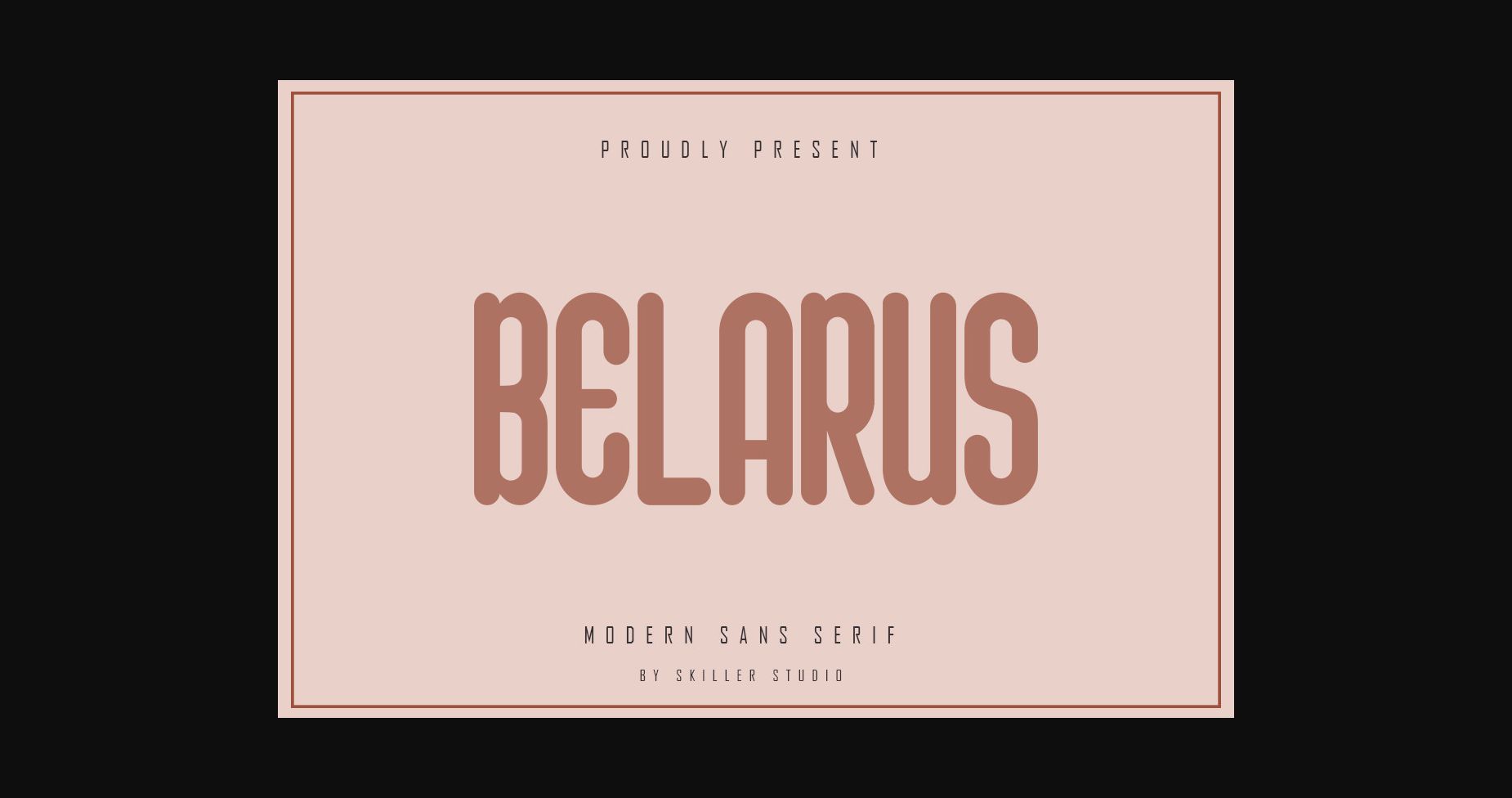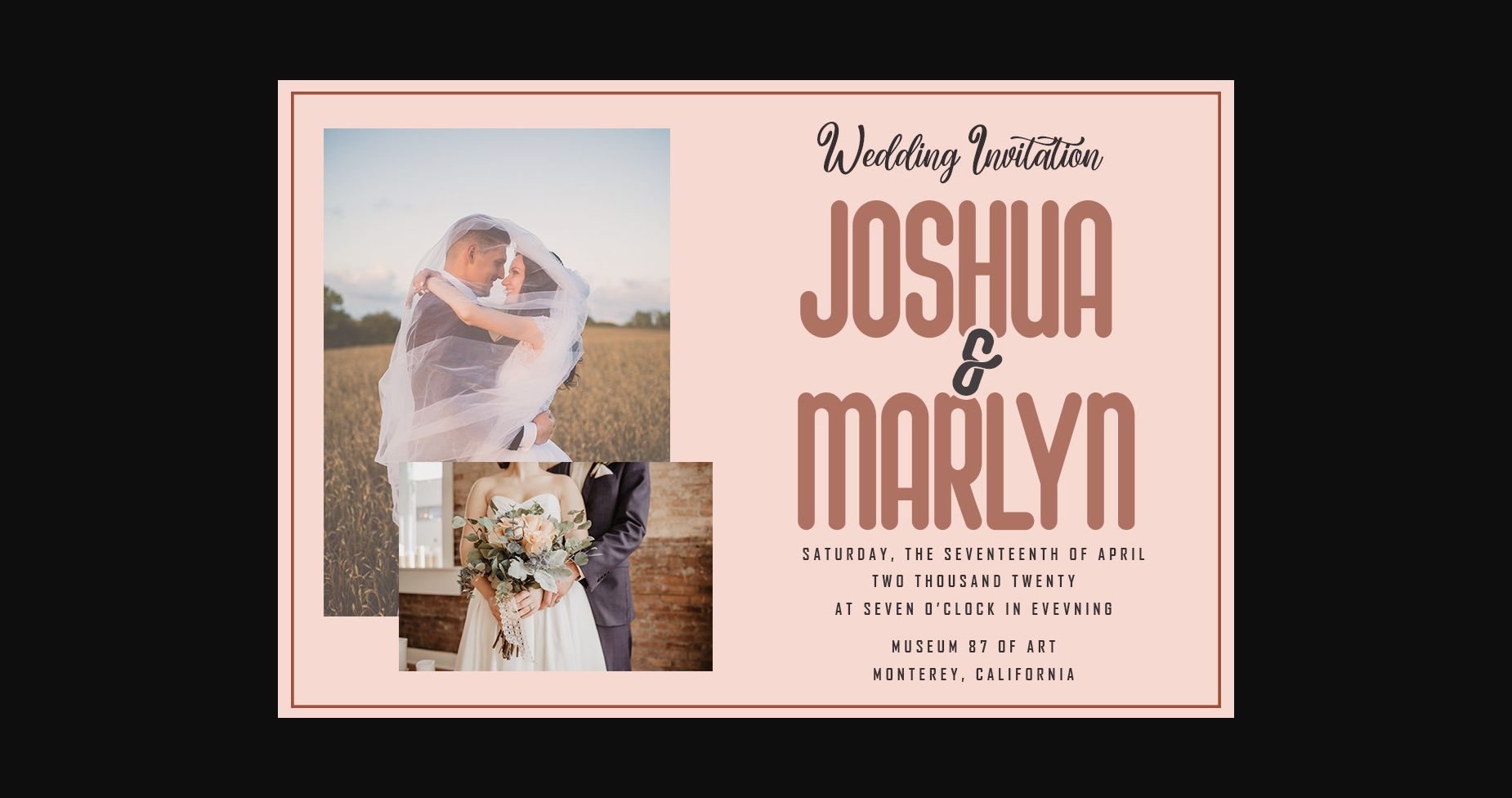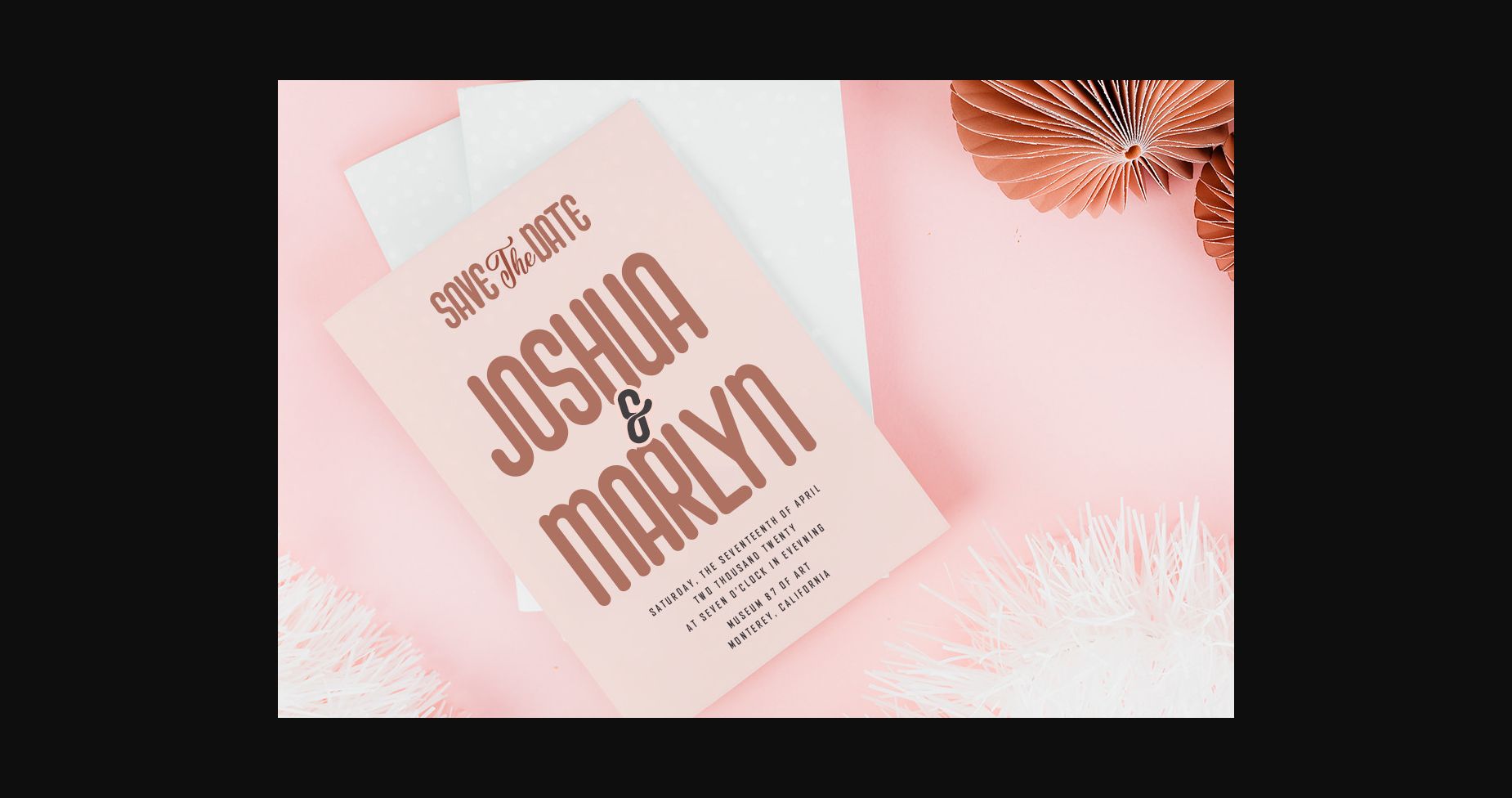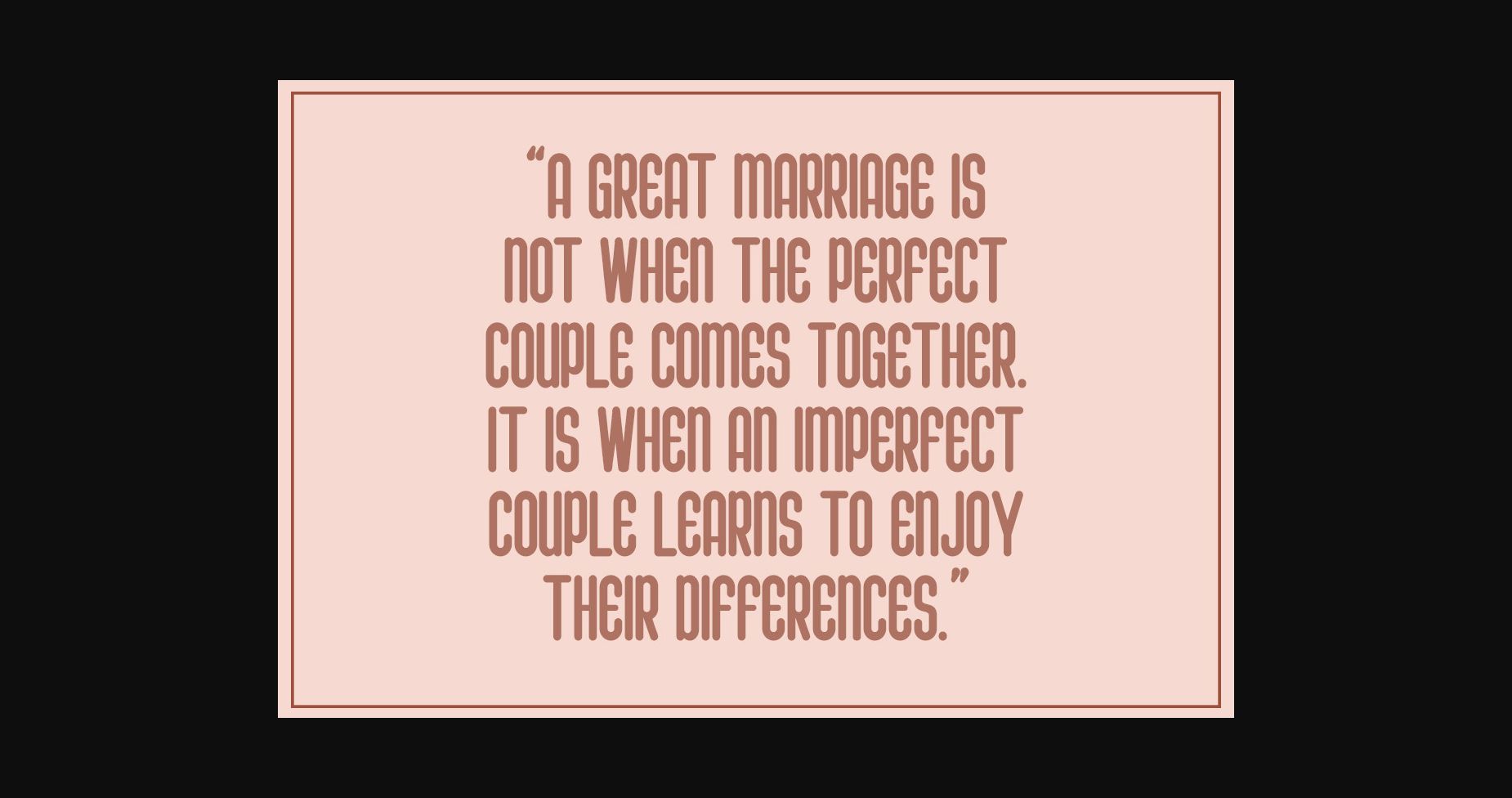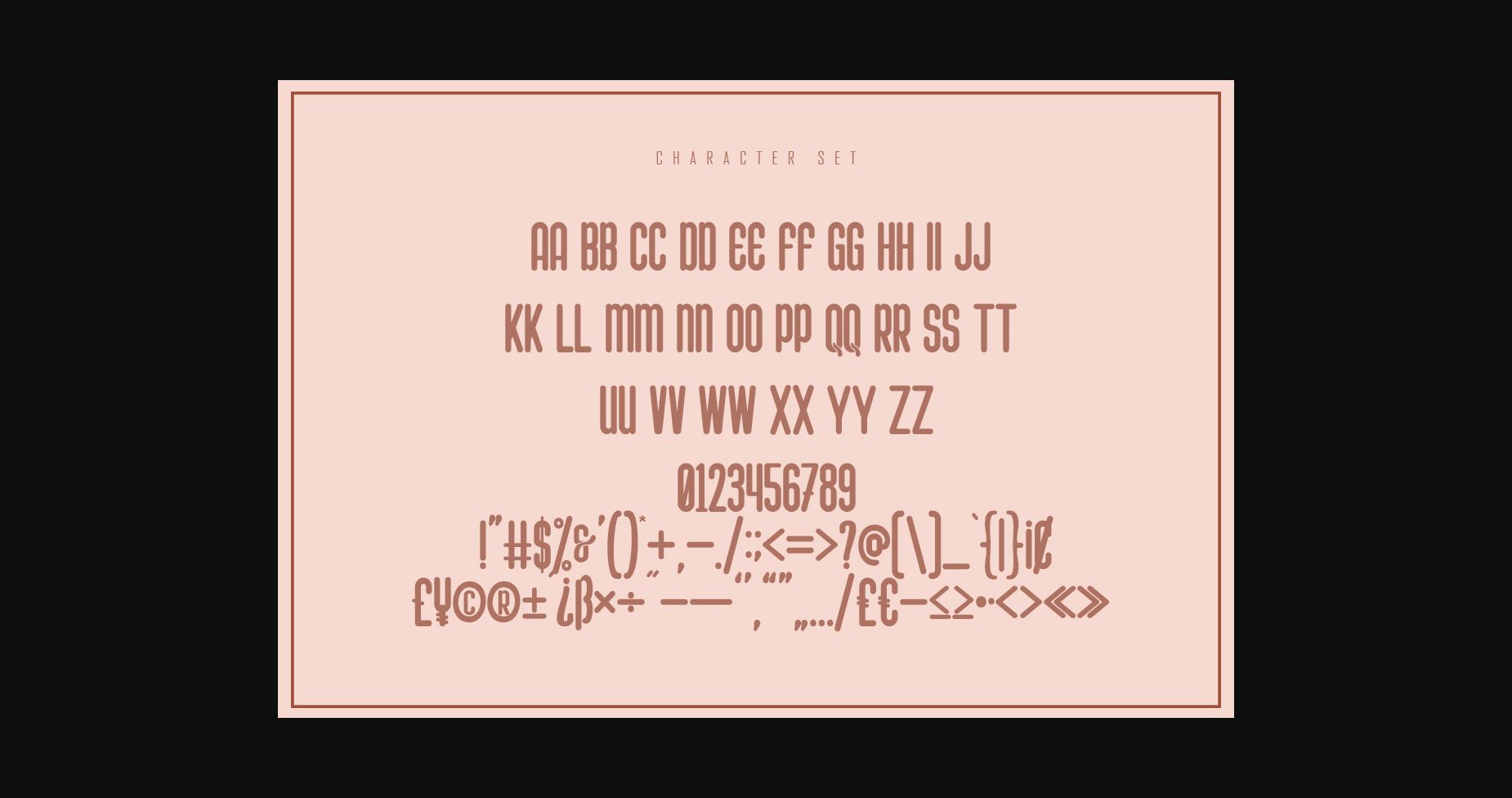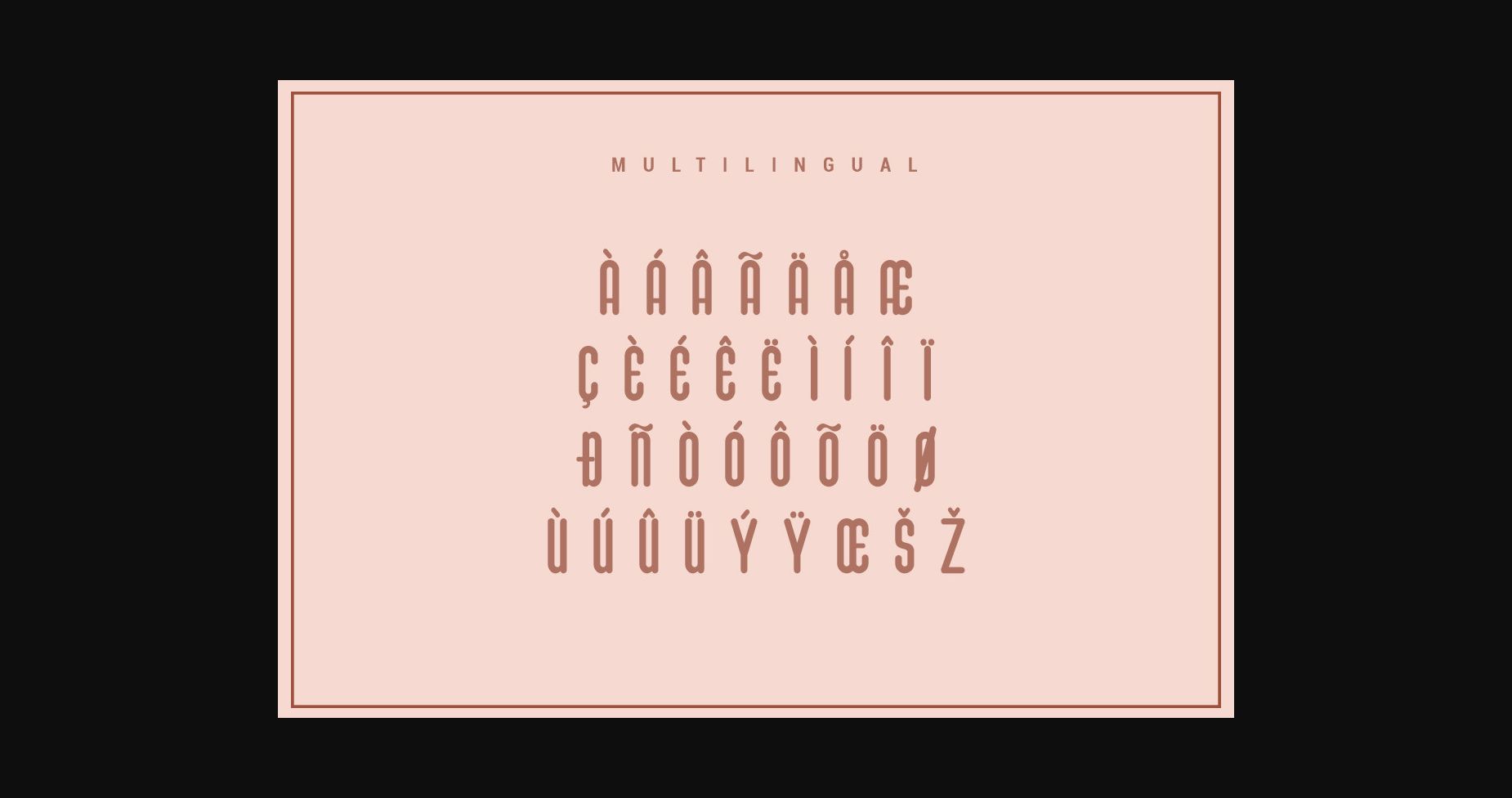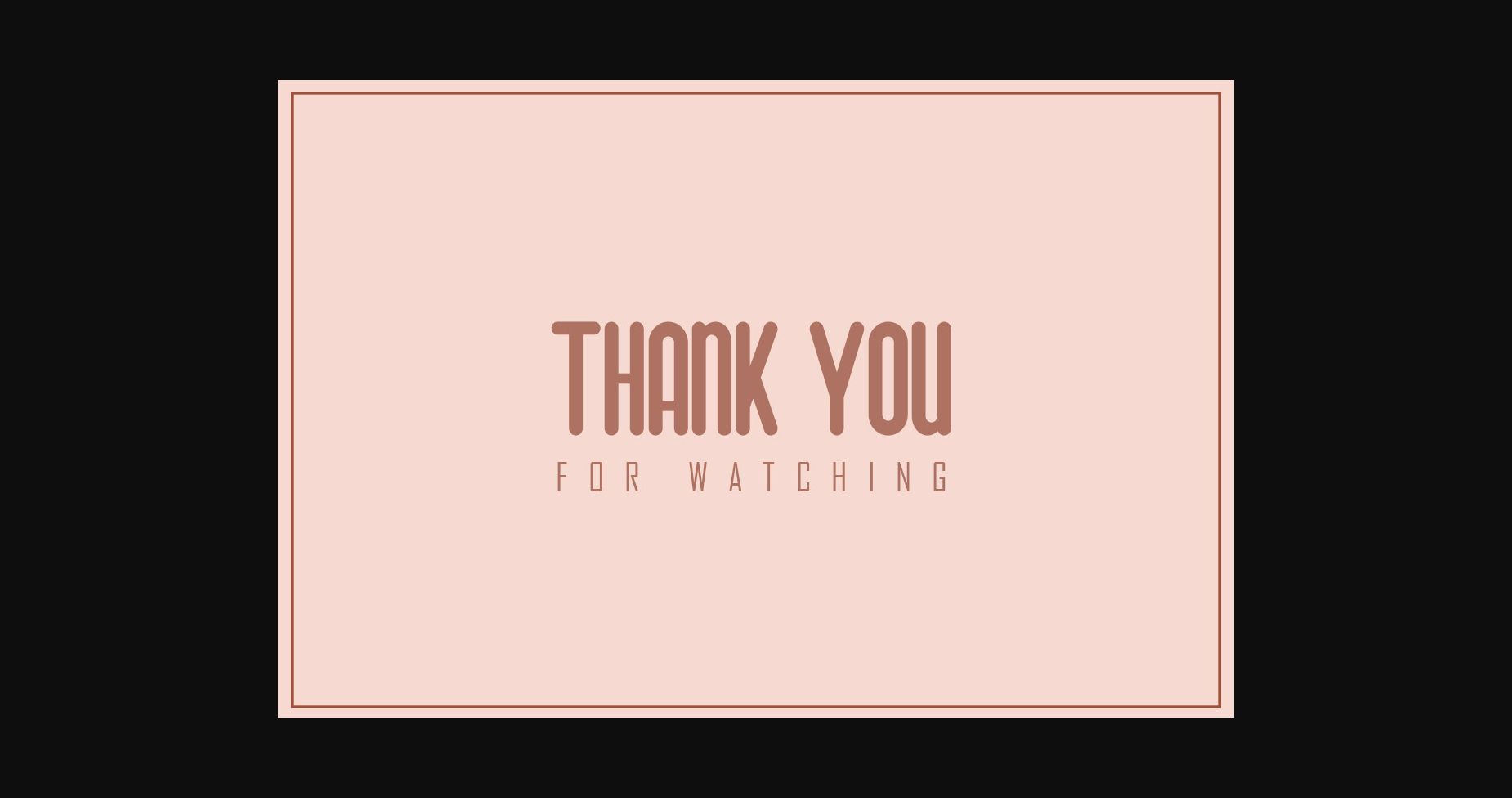
HomeSans Serif FontsBelarus Font Sans Serif Fonts Belarus Font FacebookXPinterestWhatsApp 1 of 9 ... Belarus Font Poster 2... Belarus Font Poster 3... Belarus Font Poster 4... Belarus Font Poster 5... Belarus Font Poster 6... Belarus Font Poster 7... Belarus Font Poster 8... Belarus Font Poster 9... About Belarus Font Belarus is a clean and simple sans serif font. It is suitable for designs such as t-shirts, sportswear, logos, advertisements, clothing, and more. DOWNLOAD NOW People also explored American Cheese Sanctuary Font Smoot Hands Font Steppless Font Hello Love Font Analisa Arletta Font Panichesta Font Cycle Font 303 0 TagsBelarusBelarus Font Previous articleMiamo FontNext articleAlgeko Font LEAVE A REPLY Cancel reply Comment: Please enter your comment! Name:* Please enter your name here Email:* You have entered an incorrect email address! Please enter your email address here Website: Save my name, email, and website in this browser for the next time I comment. Personal Use Free Rakesly Personal Use Free Read more about this font Nugo Sans Personal Use Free Read more about this font Jabirah Personal Use Free Read more about this font Advantage Personal Use Free Read more about this font BLOG Best Fonts for YouTube Videos: Make Your Thumbnails Stand Out Best Fonts for YouTube Videos: Make Your Thumbnails Stand Out Choosing the right font can make a massive difference in how your YouTube videos perform.... How to Cut Any Font on Cricut: Convert a Font to SVG (Free) Top 7 Google Fonts Alternatives for Faster and Privacy-Friendly Web Design (2025) Modern Sans-Serif Fonts That Brands Love in 2025